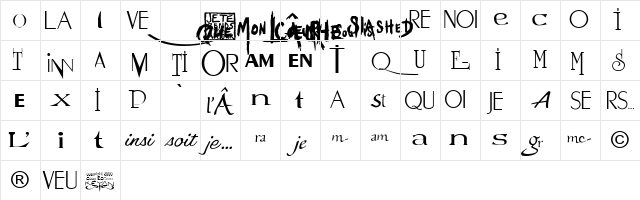
Complete Logos Myl Farmer Regular glyph index. Displaying only characters natively supported by Logos Myl Farmer Regular font.
Logos Myl Farmer is a composed and adaptable typeface that performs quietly and consistently across a wide range of design contexts.